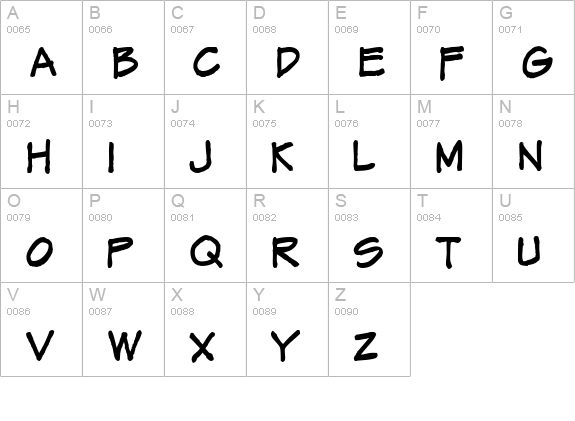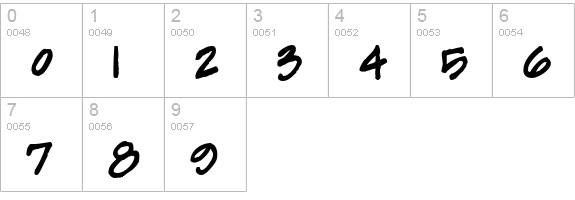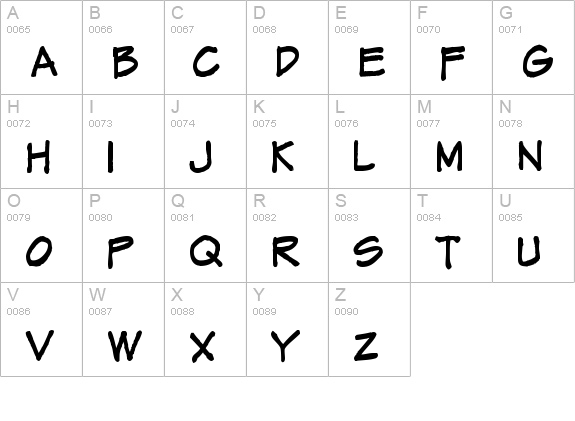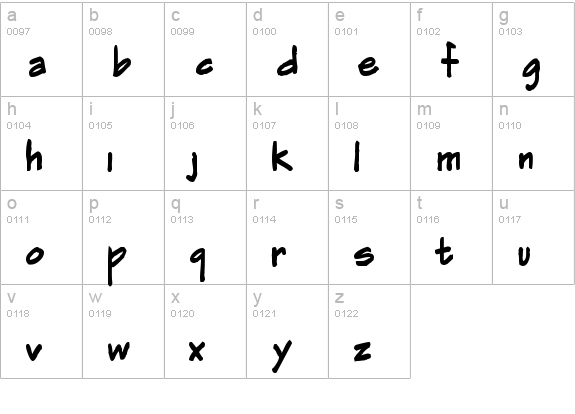
Frank the ArchitectBold Font Details
Introducing Frank the ArchitectBold font, a striking and modern typeface designed for architectural projects and creative endeavors. With its clean lines and bold presence, Frank exudes a sense of professionalism and sophistication. Perfect for signage, branding, and editorial design, this versatile font is sure to make a statement in any project. What sets Frank apart is its unique blend of elegance and strength, making it a standout choice for architects, designers, and creatives alike. Whether you're working on a sleek urban development proposal or a cutting-edge interior design concept, Frank will bring a touch of refinement to your work. Best of all, Frank the ArchitectBold font is freely available to download at FontsMarket.com. Don't miss out on this opportunity to elevate your designs with this exceptional typeface. Download Frank today and unleash your creativity with style and flair.